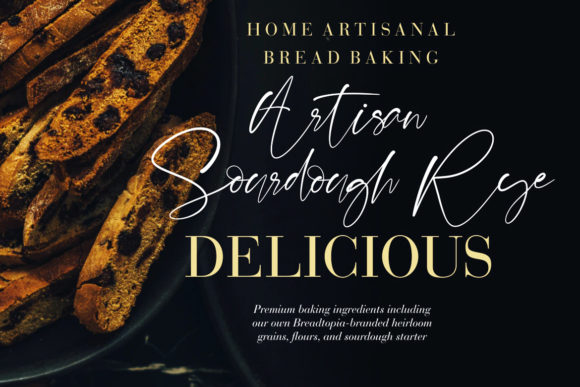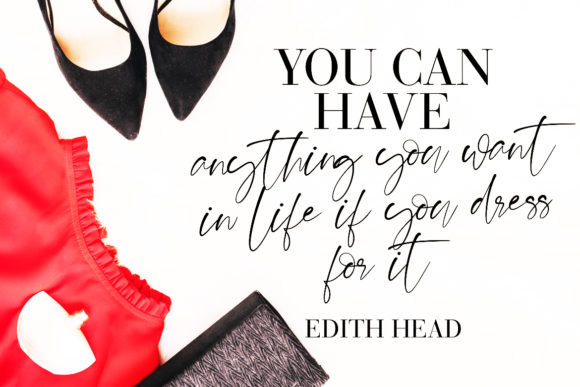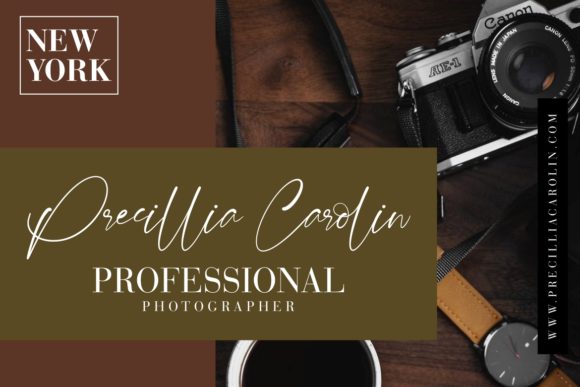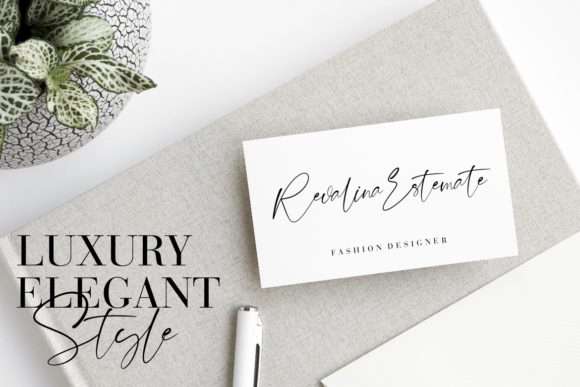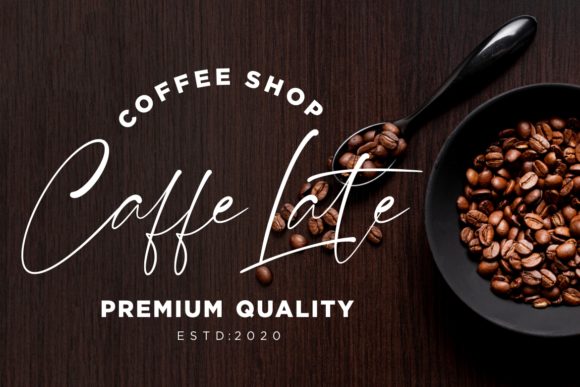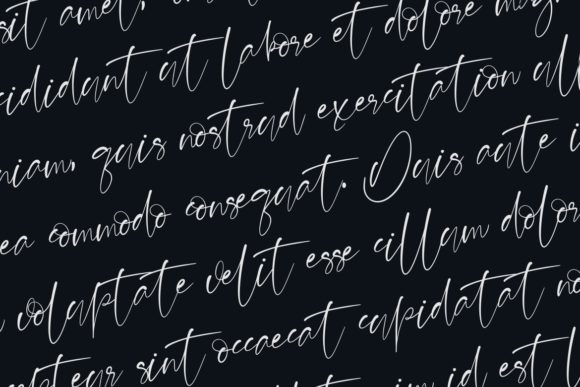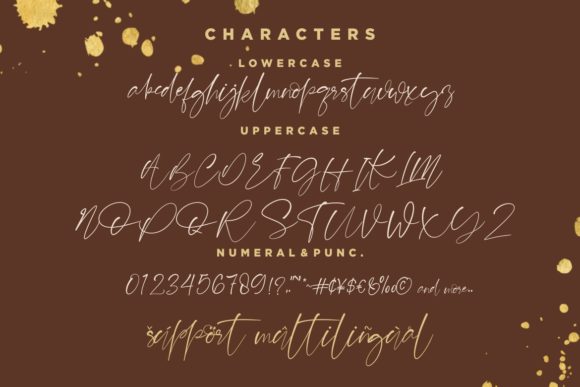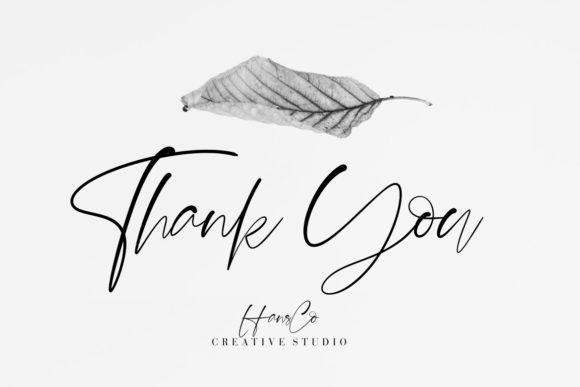
HomeScript FontsBalistone Font Script Fonts Balistone Font FacebookXPinterestWhatsApp Balistone Font Poster 2 Balistone Font Poster 3 Balistone Font Poster 4 Balistone Font Poster 5 Balistone Font Poster 6 Balistone Font Poster 7 Balistone Font Poster 8 Balistone Font Poster 9 About Balistone Font Balistone is a beautiful and modern script with a unique feel. Get inspired by its timeless charm! DOWNLOAD ON CREATIVE FABRICAThis font is sold and delivered by Creative Fabrica. Font Canyon may earn a commission if you buy through this link. People also explored Austtria Font Helmida Font Mbak Endang Love Font Handmade Calligraphy Font Tharya Font Welcome Winter Font Foxy Style Font Sweet Blossom Font Humairah Font 305 0 TagsBalistone Font Previous articleHello Darling FontNext articleCalifornia Font LEAVE A REPLY Cancel reply Comment: Please enter your comment! Name:* Please enter your name here Email:* You have entered an incorrect email address! Please enter your email address here Website: Save my name, email, and website in this browser for the next time I comment. Personal Use Free Still Time Personal Use Free Read more about this font Coffete Personal Use Free Read more about this font Term Free Personal Use Free Read more about this font Good Timing – Bold Personal Use Free Read more about this font BLOG Free vs Paid Fonts: Why Investing in Premium Fonts Is Worth It Free vs Paid Fonts: Why Premium Fonts Are Worth It in 2025 The debate of free vs paid fonts continues in the design world. While... Elegant Wedding Invitation Fonts – Handwritten & Script Fonts Best Fonts for YouTube Videos: Make Your Thumbnails Stand Out Free Fonts Risk: Why Free Fonts Can Be Dangerous for Designers